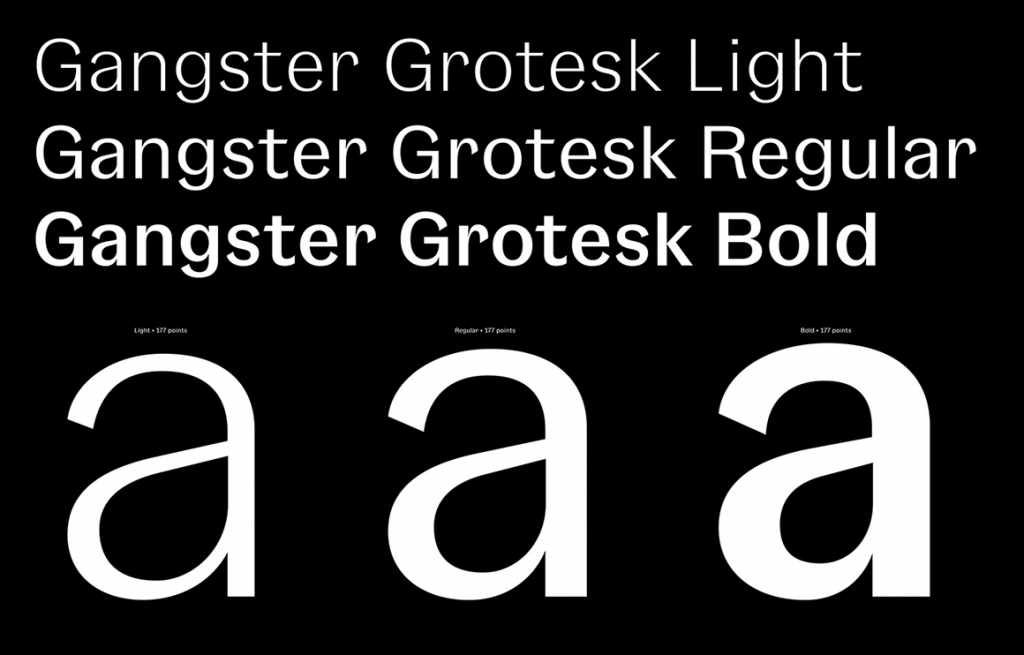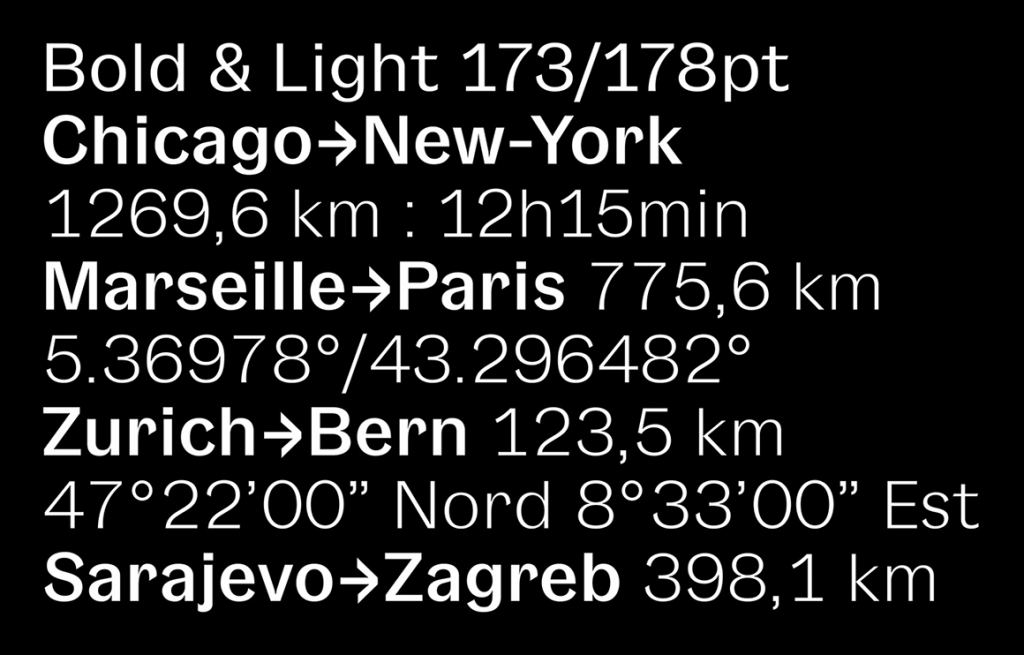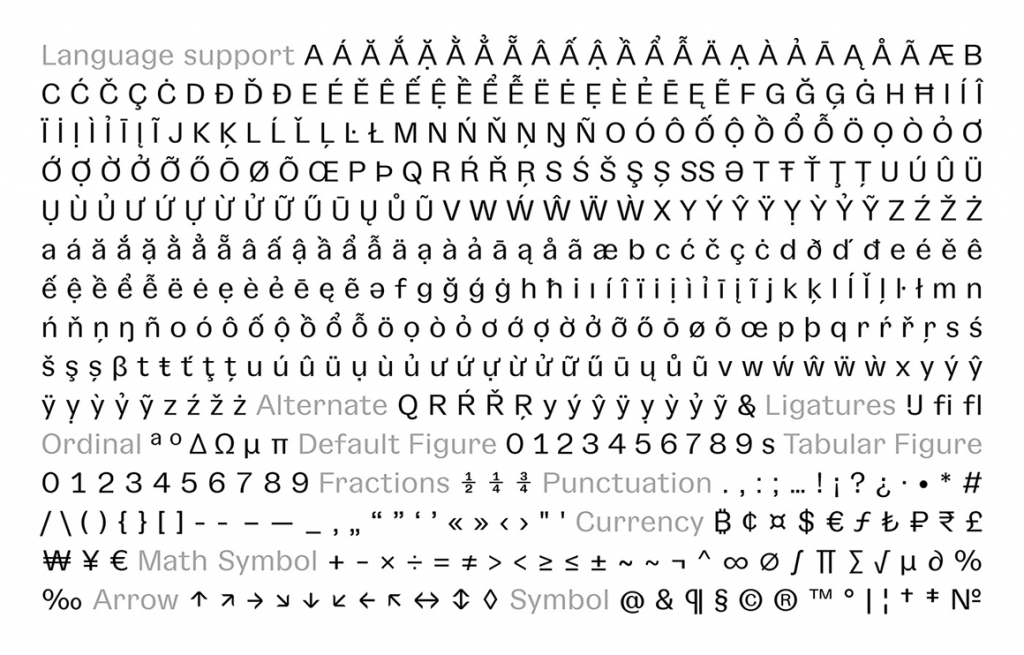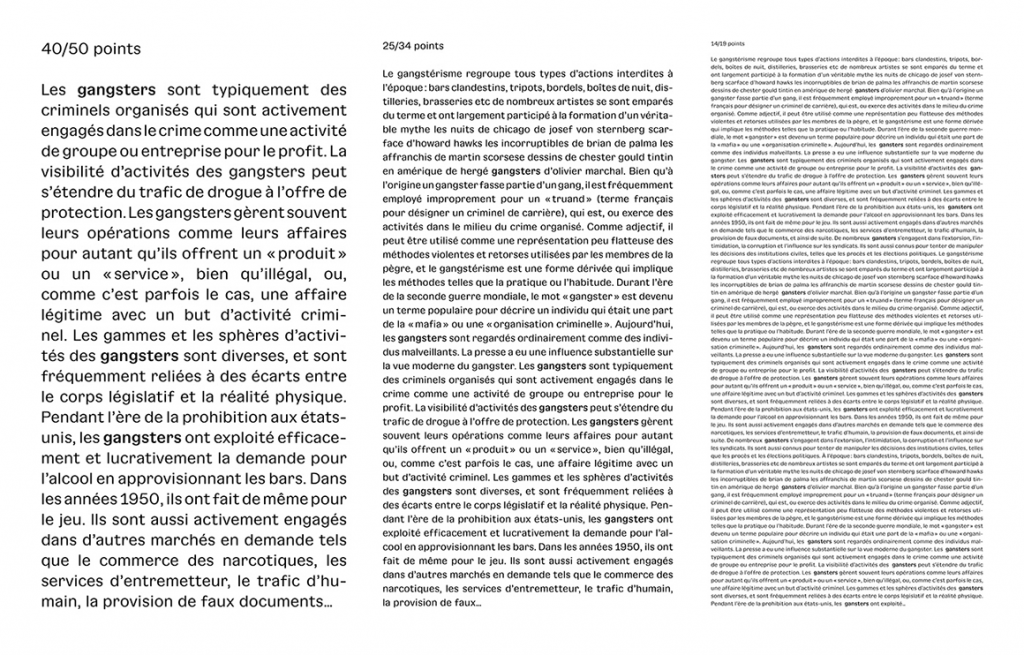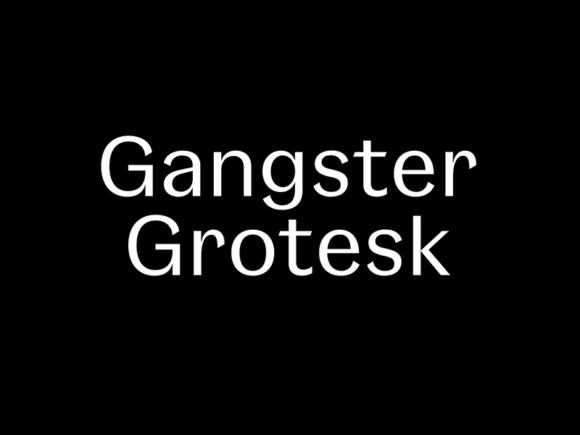
Gangster Grotesk: Free Typeface in 3 Weights
Gangster Grotesk is a free for personal and commercial use typeface inspired by the 1920’s Grotesk typefaces.
It is a contemporary typeface that combines a sharp contrast with angled terminal strokes that curve inward ever so slightly. These elements are simple but effective, lending the typeface character while being practically invisible at small sizes.
Typeface comes in 3 weights, light, regular and bold.